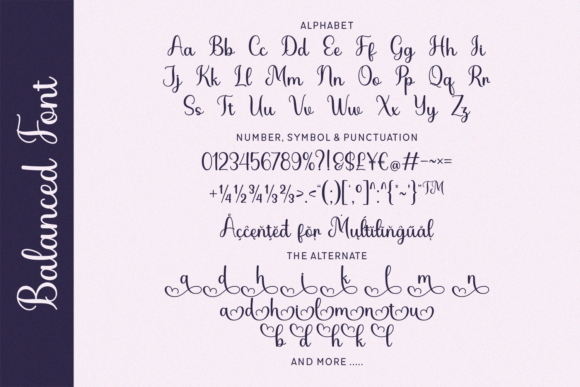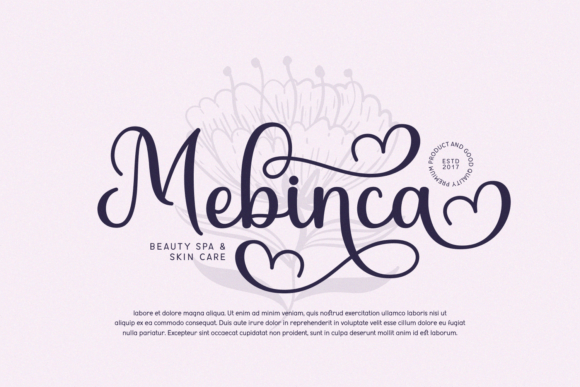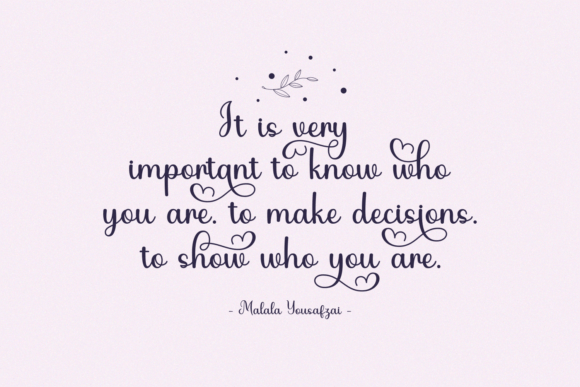
Introduction to Balanced Font
Balanced is a beautiful script font that combines elegance and readability.
Its flowing letters create a warm and inviting feel, making it perfect for invitations, greeting cards, and any project where you want to add a personal touch The smooth curves and stylish design make it easy to use and visually appealing.
Key Features of Balanced Font
Why Choose Balanced Font?
Balanced Font offers exceptional quality and versatility, making it a valuable addition to your design toolkit. Whether you’re creating for personal projects or commercial use, Balanced Font delivers professional results.